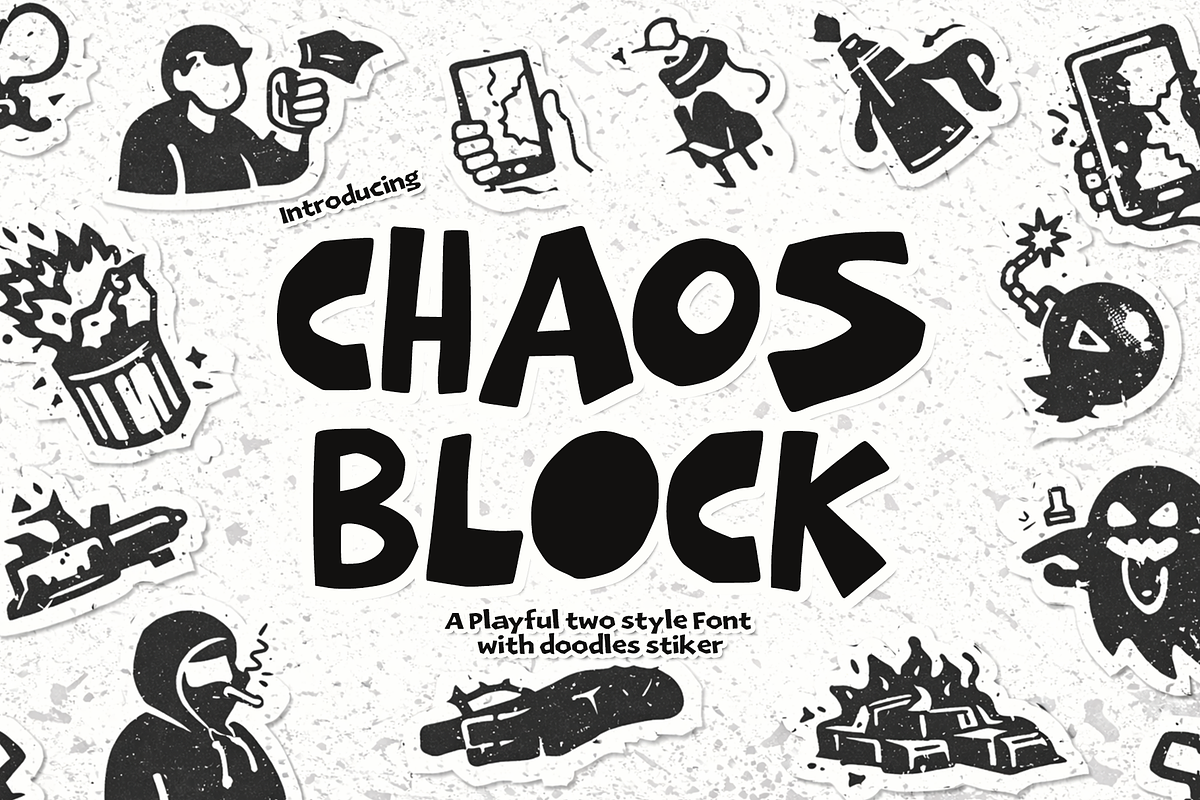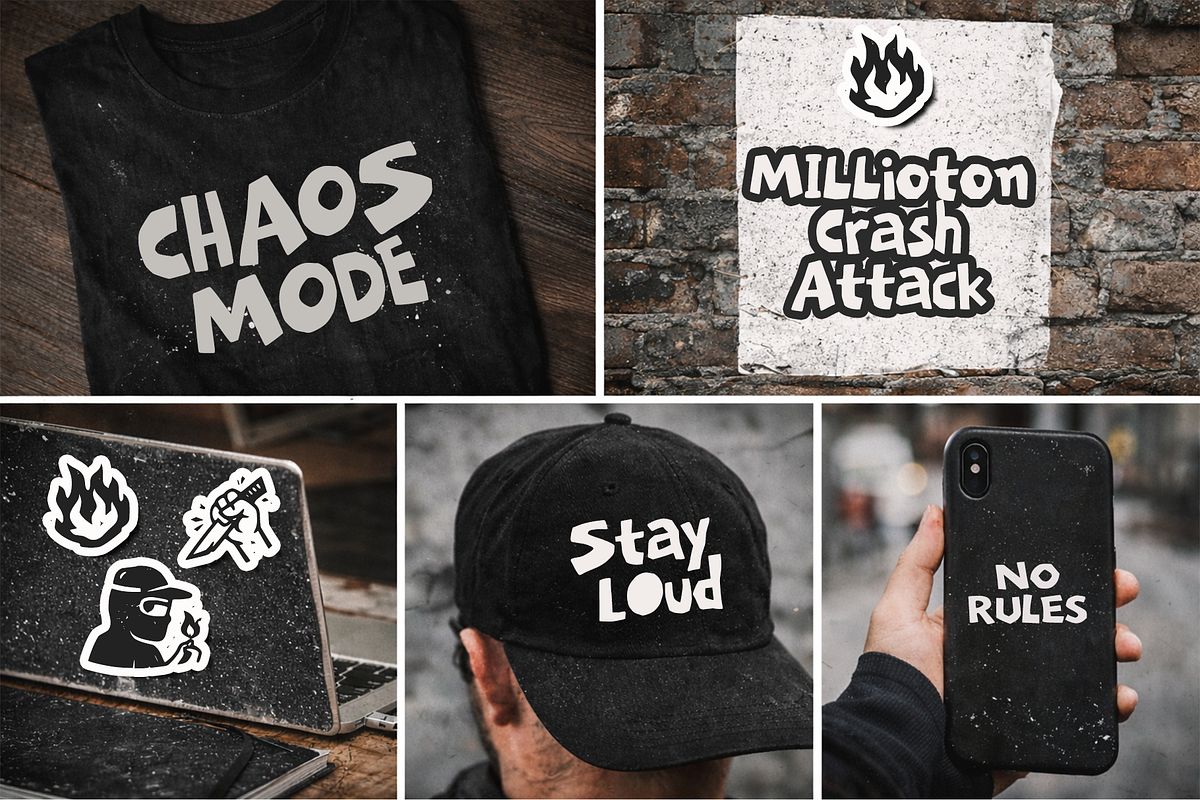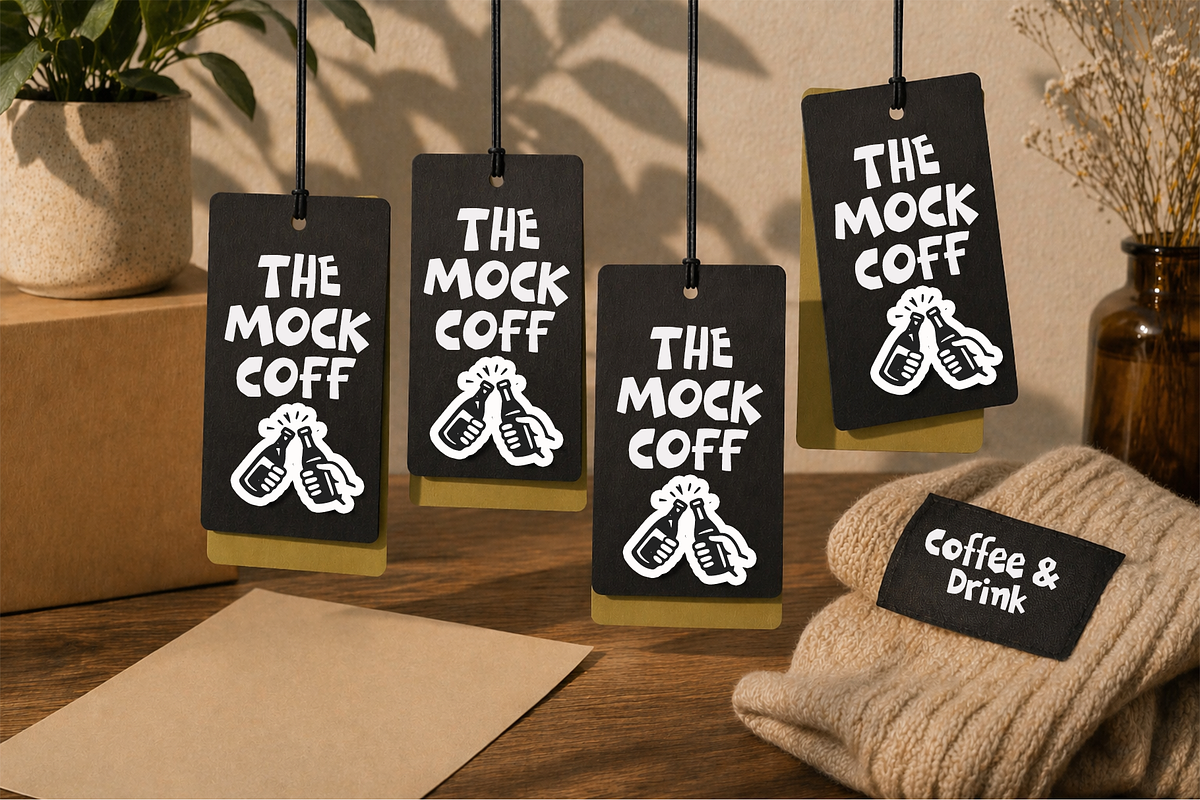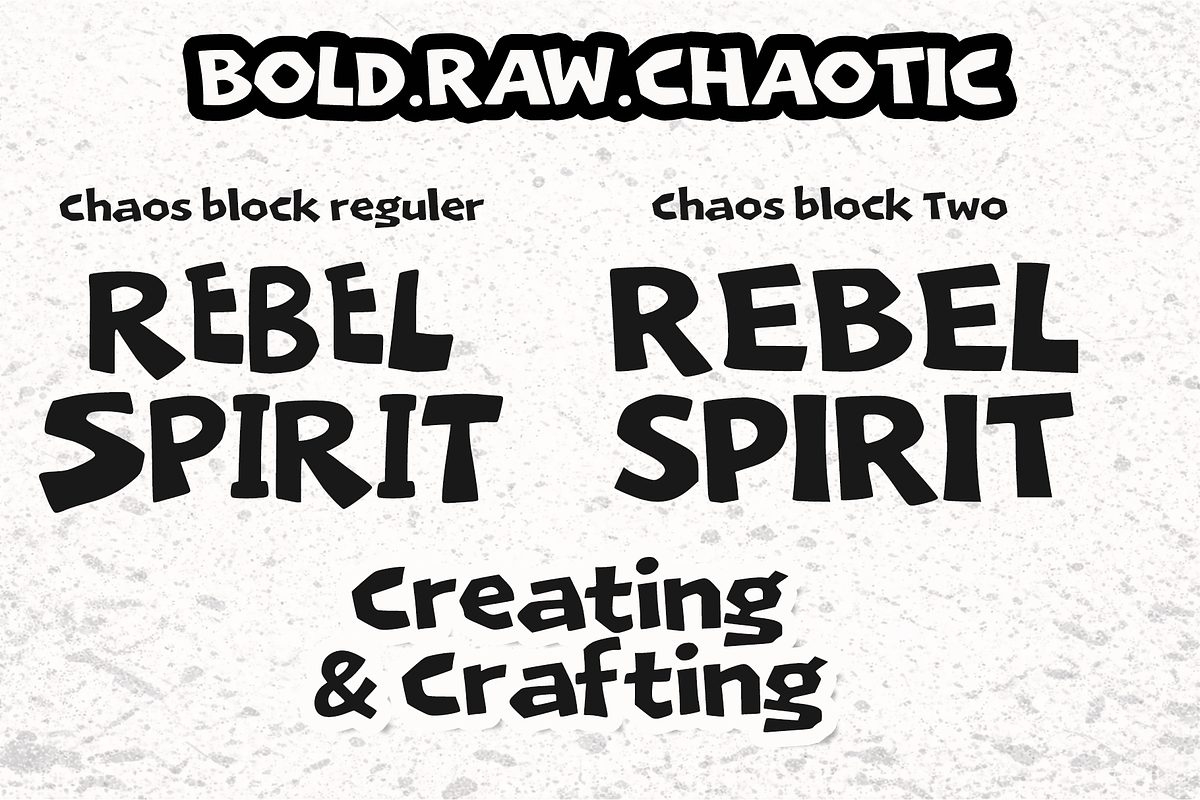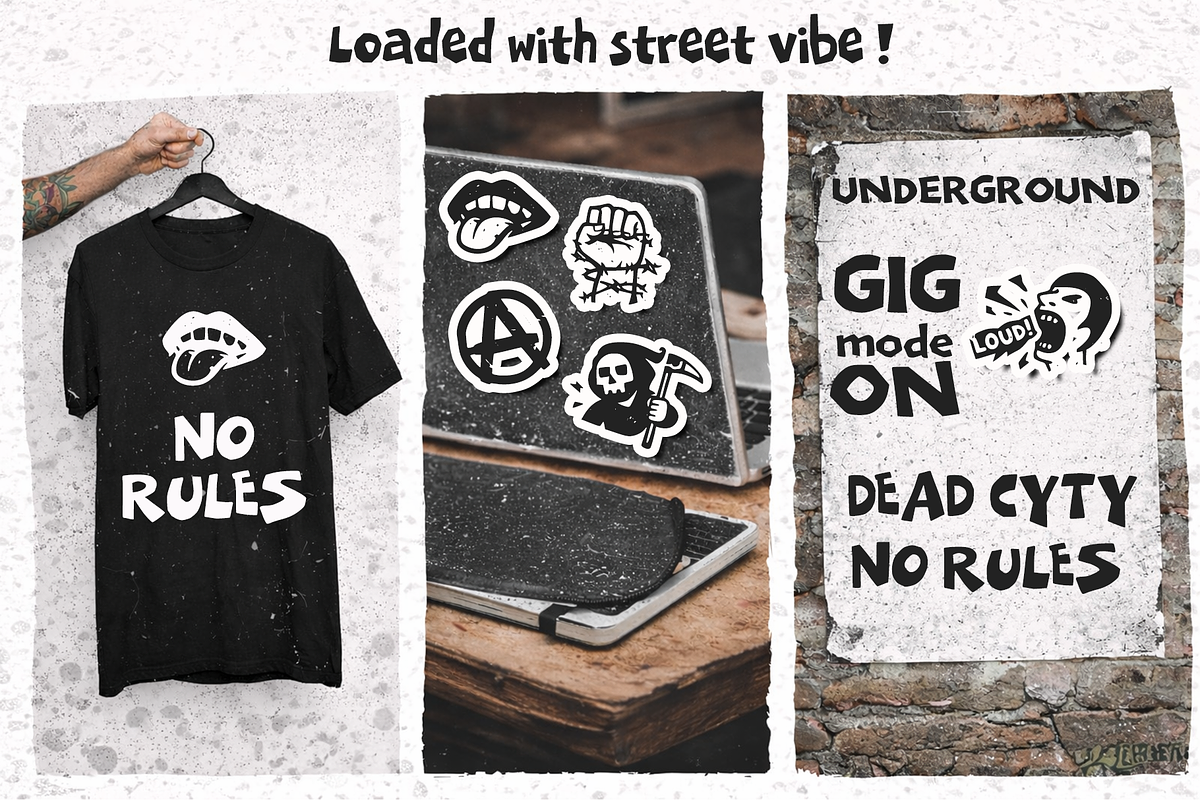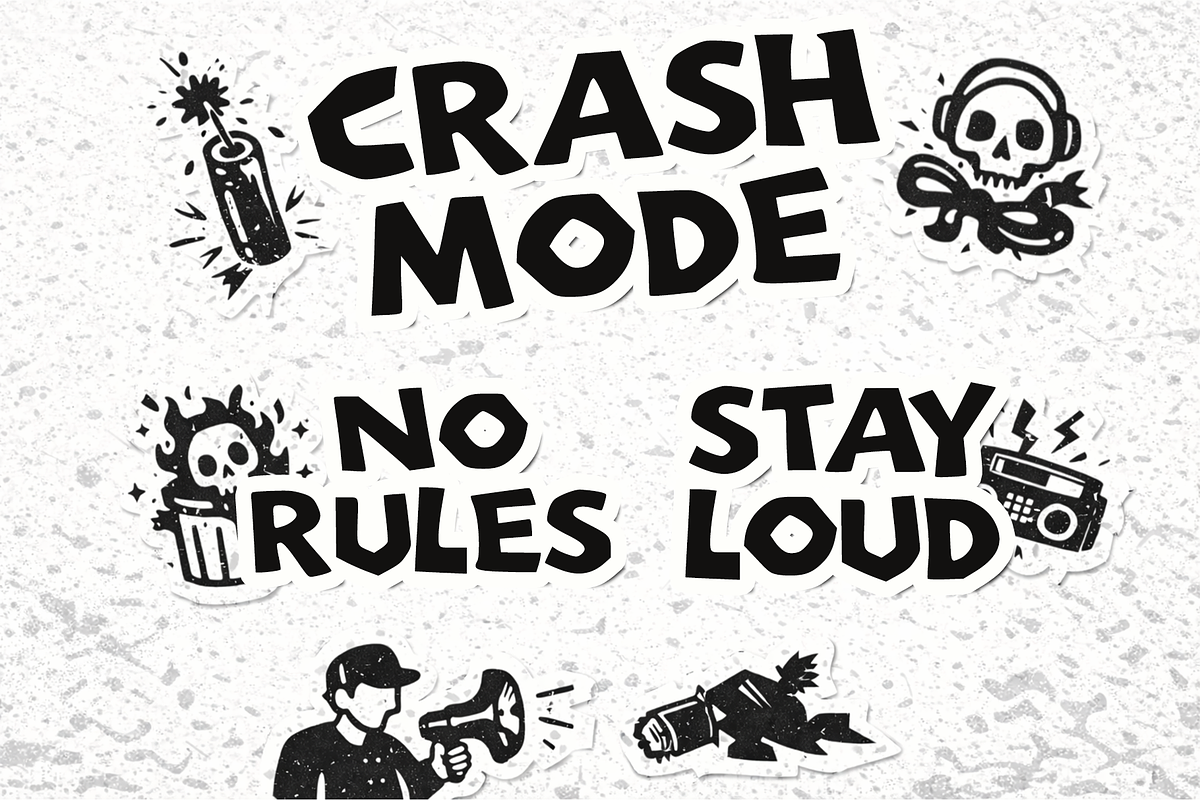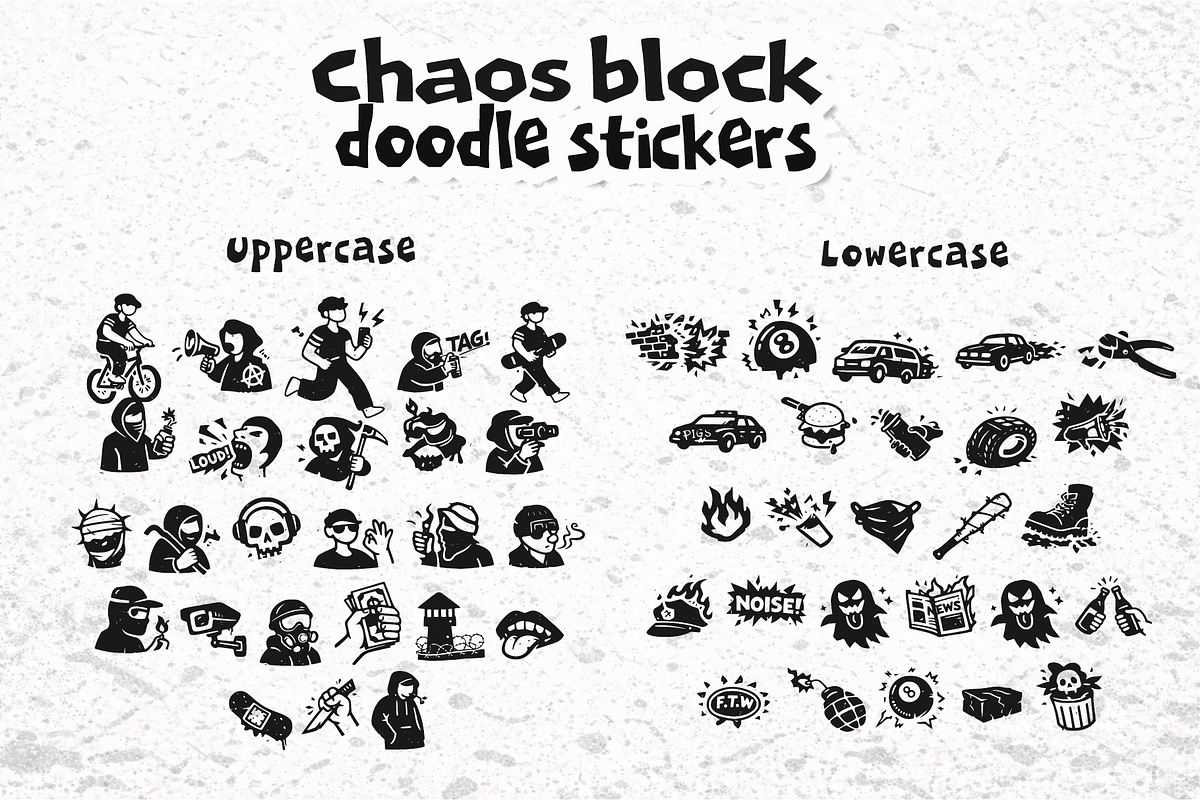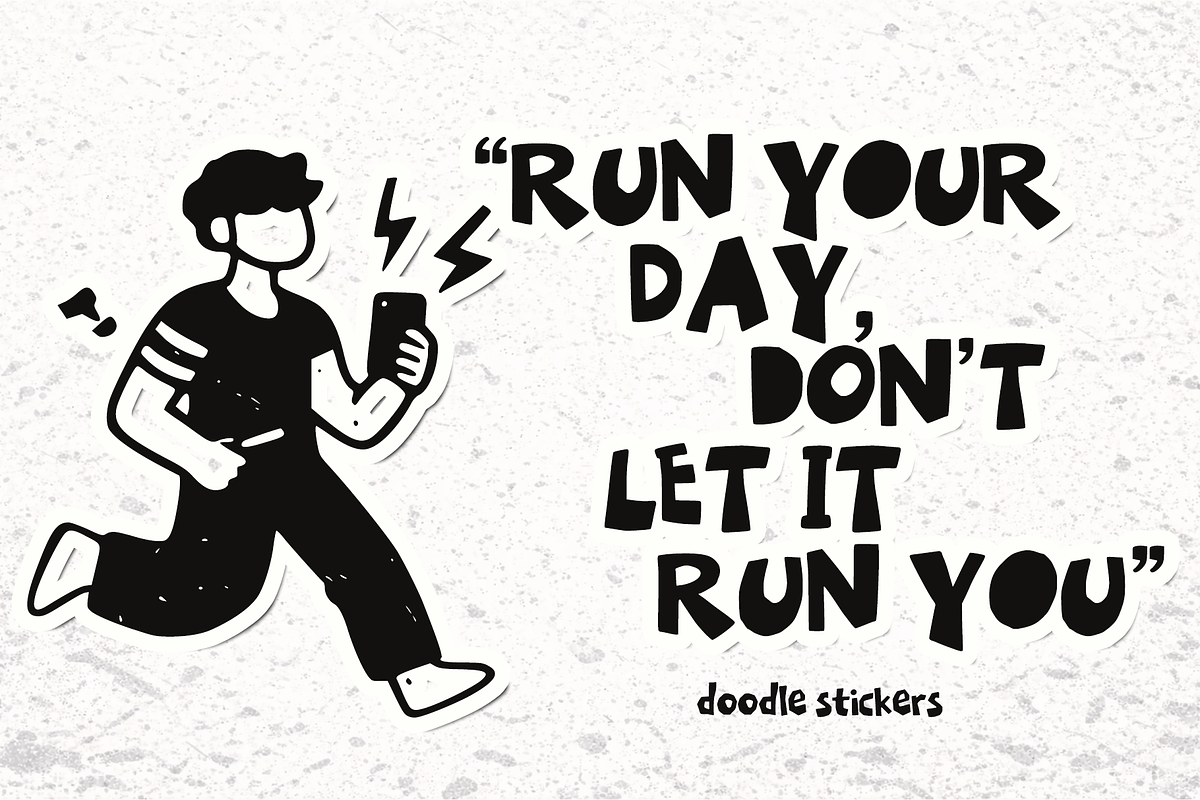
Chaos Block is a bold and playful
Chaos Block is a bold and playful display font with irregular, expressive letterforms that bring raw energy and personality into every design. Its handcrafted and slightly chaotic appearance creates a unique and eye-catching visual style.
This font comes in two styles, giving flexibility to explore different looks while maintaining a consistent character. In addition, Chaos Block includes a set of alternate characters, allowing more variation and creative freedom in typography compositions.
To complete the experience, this font also includes a collection of playful doodle stickers that perfectly match its fun and energetic style. These extra elements make it easier to create cohesive and standout visuals without additional assets.